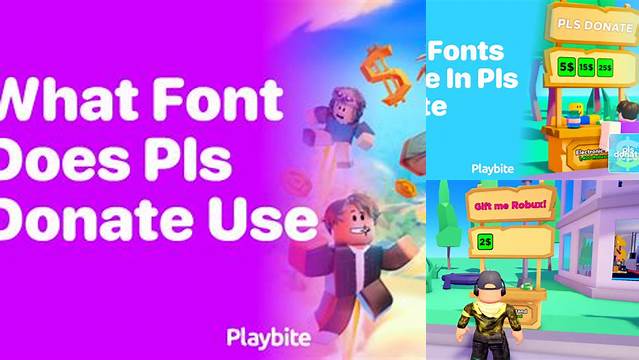
Awesome Fonts For Your PLS DONATE Booth
Hey everyone! If you're looking to make your PLS DONATE booth stand out and snag those sweet Robux donations, you've got to think about your font choices, right? Well, you're in luck! Choosing cool fonts in PLS DONATE can make a huge difference. A well-chosen font not only looks good but also communicates your vibe, making people more likely to stop by and, you know, donate! Let's dive into the world of fonts and how they can boost your PLS DONATE game. We'll cover everything from the best font styles to where you can find them, and even some tips on how to make your booth irresistible.
Best Fonts for PLS DONATE: Making a Great First Impression
When it comes to the best fonts for PLS DONATE, you've got to think about what message you want to send. Are you going for fun and playful? Maybe something sleek and professional? Or perhaps you want to channel a touch of mystery? There are tons of font styles to choose from, and it all depends on the look you're aiming for. Let's break down some of the top font types that work well in PLS DONATE and why.
First up, we have bold and chunky fonts. These are fantastic for grabbing attention. They’re perfect for your main booth title or any large text that needs to pop. Think of fonts like 'Impact' or 'Bebas Neue'. These fonts are easy to read from a distance, which is super important in the busy world of PLS DONATE. They shout, “Hey, look at me!” without being too overwhelming. The key here is to use them sparingly, though. Too much bold text can be, well, too much.
Next, we have script fonts. These fonts mimic handwriting, which can add a touch of elegance and personality. They can make your booth feel more inviting and friendly. Fonts like 'Pacifico' or 'Dancing Script' are great examples. These are ideal for smaller details, like a friendly welcome message or a short description of what you're offering. However, be careful: readability is key, so pick a script font that’s easy on the eyes. Don't go overboard with intricate scripts; keep it simple.
Lastly, consider modern and minimalist fonts. These are clean, easy to read, and give off a professional vibe. They’re perfect if you want a sleek, contemporary look. Think of fonts like 'Lato' or 'Raleway'. These fonts often work well for descriptions, instructions, or any other text that needs to be clear and concise. They don't distract from your booth's overall design, so if you're focused on the content of your booth and what you offer, these are a great choice.
How to Choose the Right Font Style for Your PLS DONATE Booth
Choosing the right font style for your PLS DONATE booth isn't just about picking something that looks cool; it’s about picking something that aligns with your overall brand and the message you want to send. You want to make your booth unique, right? The whole idea here is to be strategic. So, how do you pick the right one? Let's break down some steps to make sure you choose the perfect font.
First, consider your target audience. Who are you trying to attract? If you're aiming to appeal to younger players, maybe a fun, playful font would be a good fit. If you're aiming for a more mature audience, perhaps a more sophisticated font would be a better choice. Thinking about your audience will help you narrow down your options from the get-go. What appeals to them? What's the general vibe they like?
Second, think about your booth’s theme. Does your booth have a particular theme? A medieval theme might call for a font that looks like old parchment or a gothic style. A space theme? Maybe a futuristic font would suit you. The font should complement your booth's overall aesthetic. Does it feel cohesive? Or is it like mixing oil and water? The more the font blends with the booth, the better the experience.
Third, prioritize readability. This is super important, guys. No matter how cool a font looks, if it's hard to read, it's a no-go. Make sure your font is easy to read, especially from a distance. Remember, people are scrolling through a lot of booths. If they can't quickly understand what your booth is about, they'll move on. Test out the font in your booth and see how it looks and if other people can easily read it.
Finally, experiment and try different combinations. Don’t be afraid to try out different font combinations. Pair a bold headline font with a more subtle font for the body text. Sometimes, the best font choices are those that complement each other. Play around and see what works best for your booth. There are no hard and fast rules, so be creative!
Font Recommendations: Fonts That Shine in PLS DONATE
Now, let's get into some specific font recommendations for PLS DONATE. I'm going to give you some fonts that work really well. Keep in mind, you'll be looking for fonts that Roblox supports, or if not, easy alternatives. Here are some awesome fonts that will help your booth stand out:
- Impact: This is a classic for a reason! It's bold, easy to read, and grabs attention. Perfect for your booth's title or any important message you want to convey. It's a super strong contender for anything big and bold.
Conclusion: Level Up Your PLS DONATE Booth with the Right Fonts!
So, there you have it! Choosing cool fonts in PLS DONATE can totally transform your booth and boost your Robux donations. Remember to consider your audience, theme, and the overall message you want to send. By using the right fonts and following these tips, you can create an irresistible booth. Now go out there, experiment, and make your booth the best it can be. Good luck, and happy donating!